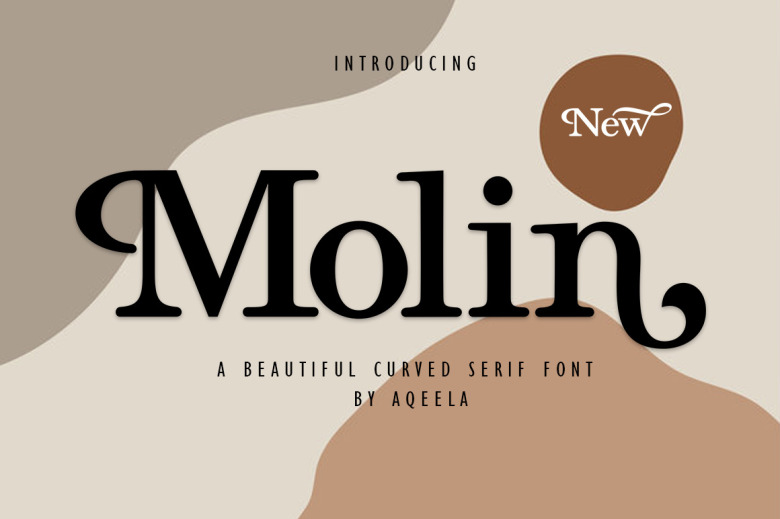
Molin Font
Molin, a historic serif font, exudes timeless appeal with its authentic style. This typeface is ideal for ephemera, retro tasks, handicrafts, apparel, digital stickers, design software illustrations, corporate identity, online journals, emblems, and invitations among other uses.
Molin Serif Font